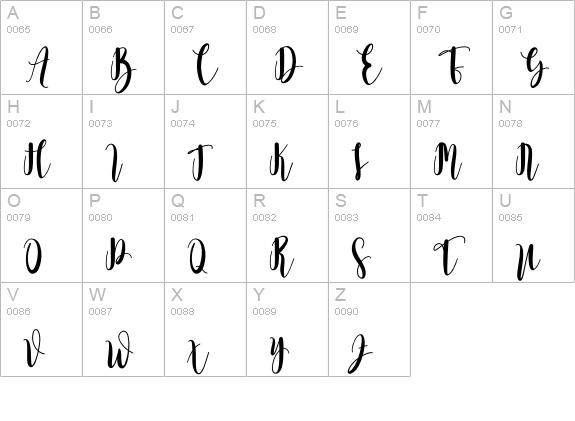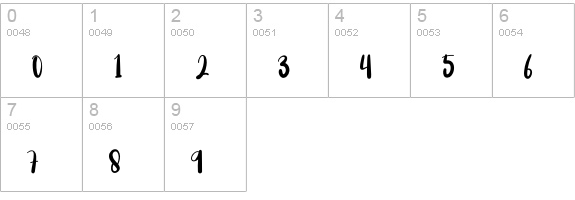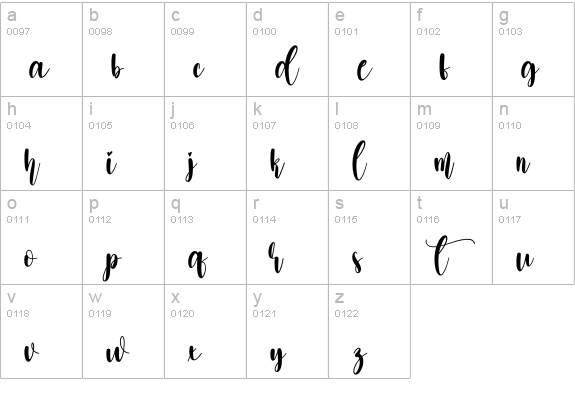
Mellody is a free for personal use font in the Script > Handwritten category, designed by scratchones. It has been downloaded 5 times and is available for Windows, Mac and Linux.
Introducing Mellody font, a captivating typeface that effortlessly blends elegance with modernity. With its sleek lines and stylish curves, Mellody font exudes sophistication and charm, making it the perfect choice for a wide range of design projects.
This versatile font is ideal for creating eye-catching logos, branding materials, invitations, and more. Whether you're working on a poster, website, or packaging design, Mellody font will add a touch of class and refinement to your work.